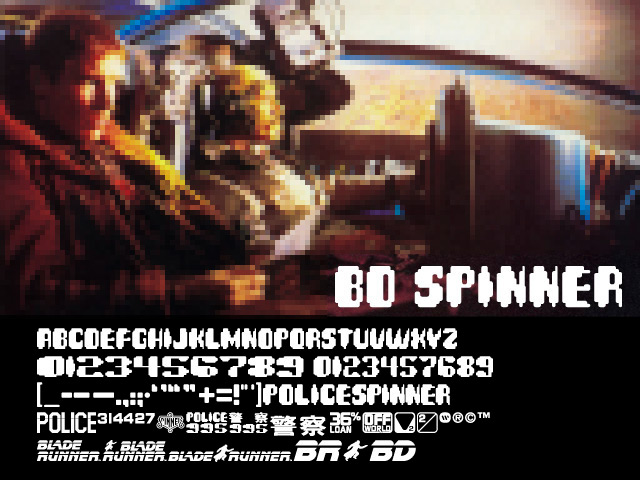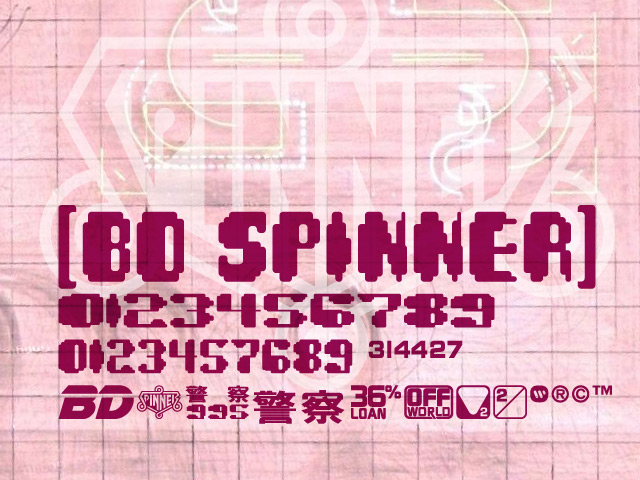
HomePersonal Use FreeBD Spinner Personal Use Free BD Spinner FacebookTwitterPinterestWhatsApp 1 of 2 About BD Spinner Font BD Spinner is inspired by the signage designs in the movie Blade Runner. DOWNLOAD NOW People also explored Mellaney Script Font Mattoa Font Feeling Lonely Font The Magic The Piraglen Font Vallen Font Busingen Am Hochrhein Font Lemonade Font Thanksgiving Font 165 0 TagsBD Spinner Font Previous articleMike Ferrari 16017Next articleBD Algebra LEAVE A REPLY Cancel reply Comment: Please enter your comment! Name:* Please enter your name here Email:* You have entered an incorrect email address! Please enter your email address here Website: Save my name, email, and website in this browser for the next time I comment. Personal Use Free Choco Shake Font Personal Use Free Read more about this font Camping Personal Use Free Read more about this font Sybil Green Personal Use Free Read more about this font Midnight Show Personal Use Free Read more about this font BLOG Exploring Font Trends Shaping Communication in the Digital Era Fonts, like all design elements, are subject to trends. They play a crucial role in communicating a brand's personality,... Elegant Wedding Invitation Fonts – Handwritten & Script Fonts Best Fonts for T-Shirt Design – Top 2025 Picks To increase your work productivity, choose the most readable fonts.